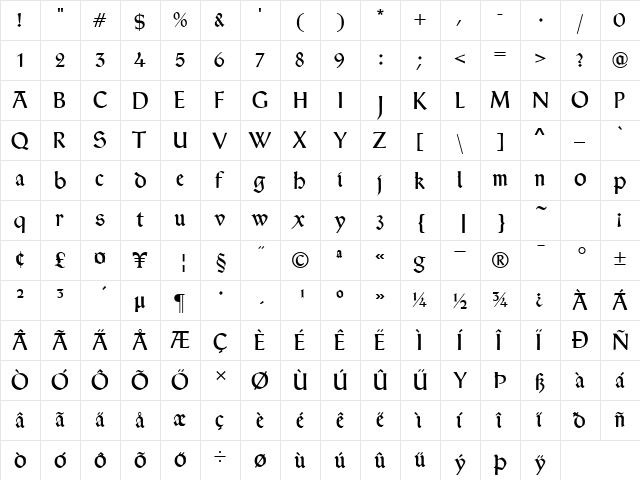
Typographer Rotunda UNZ1 Regular
| Designer | Dieter Steffmann |
Design Context for Typographer Rotunda UNZ1 Typeface
Typographer Rotunda UNZ1 is a composed and adaptable typeface that performs quietly and consistently across a wide range of design contexts.